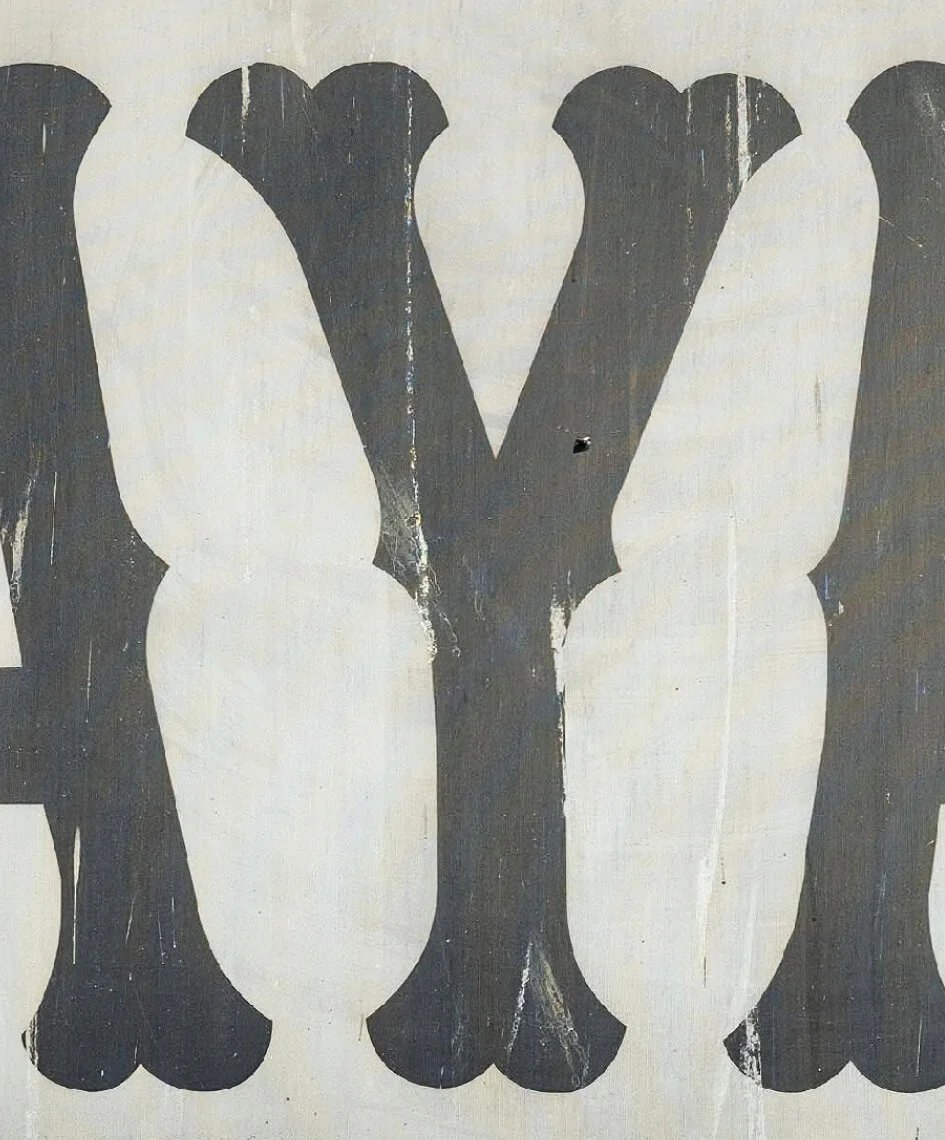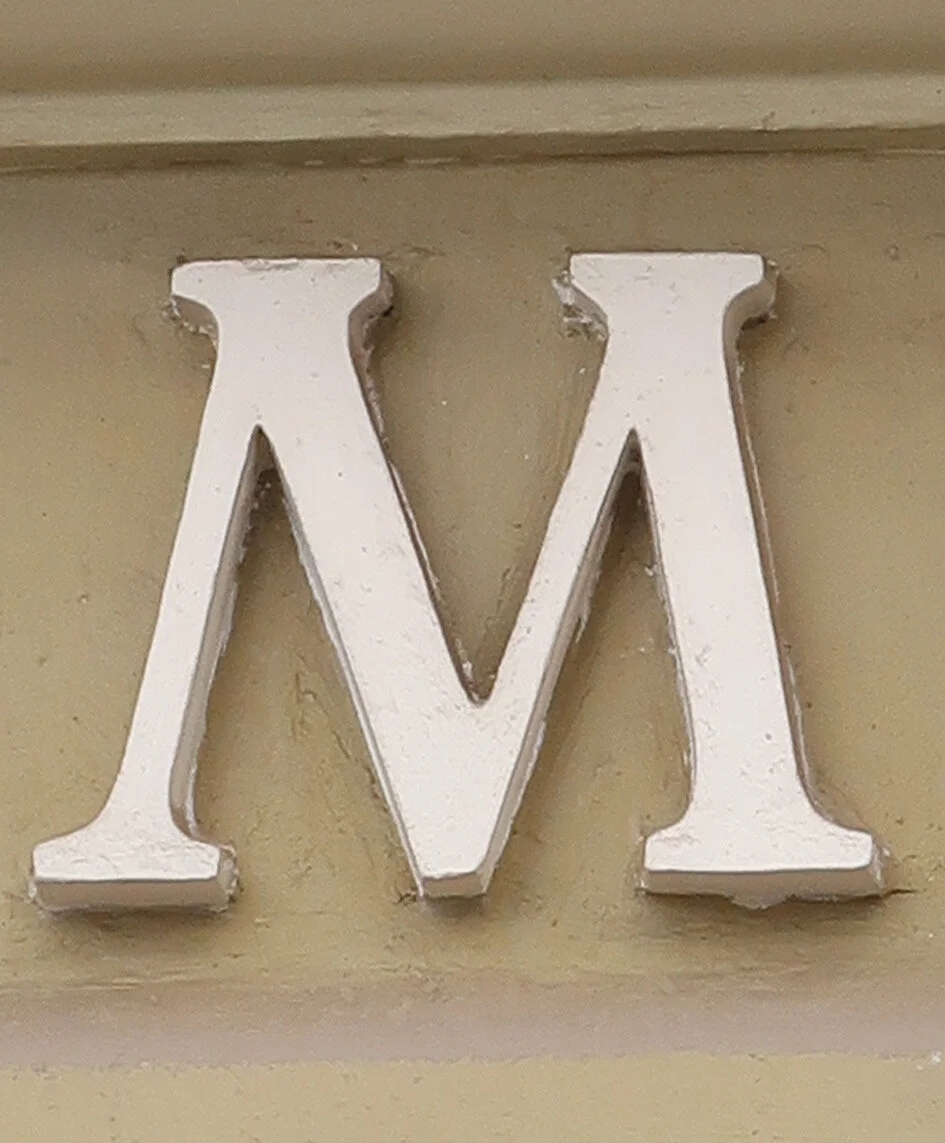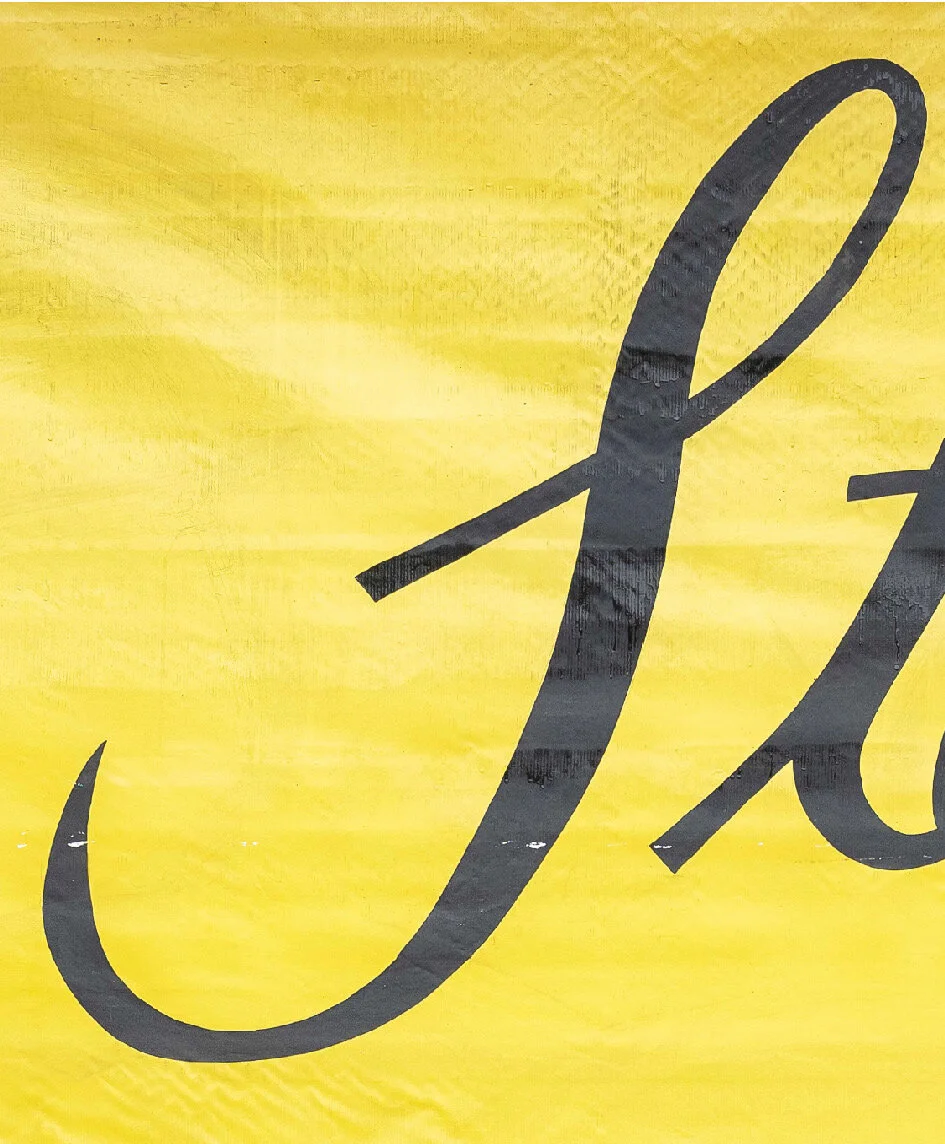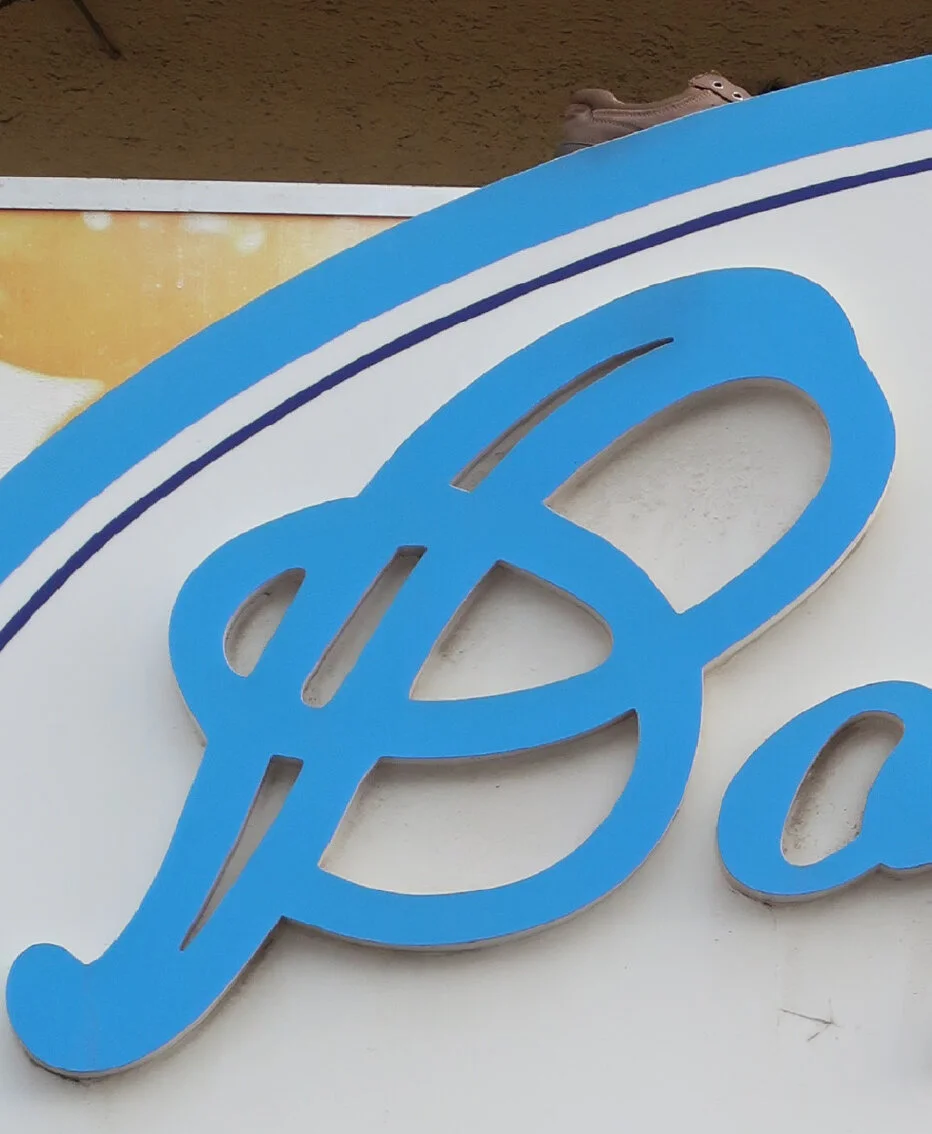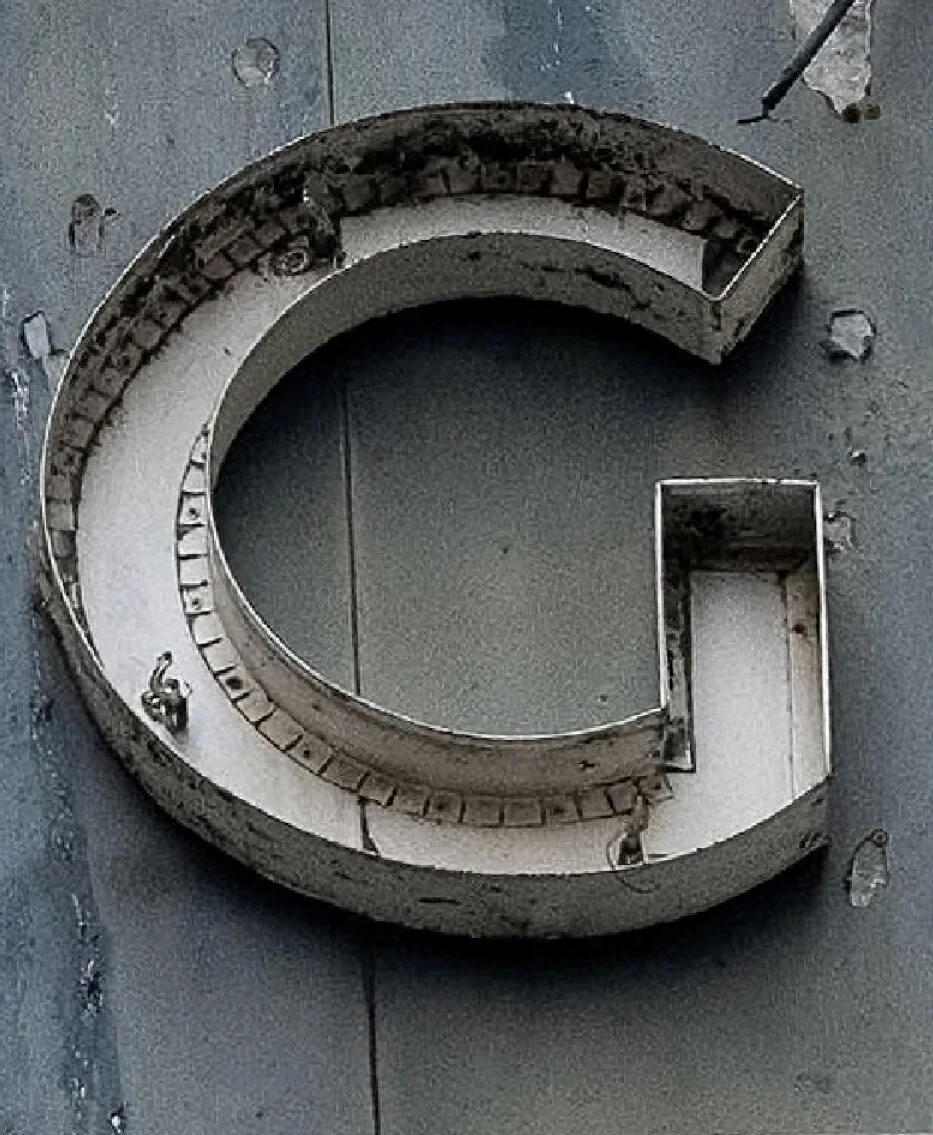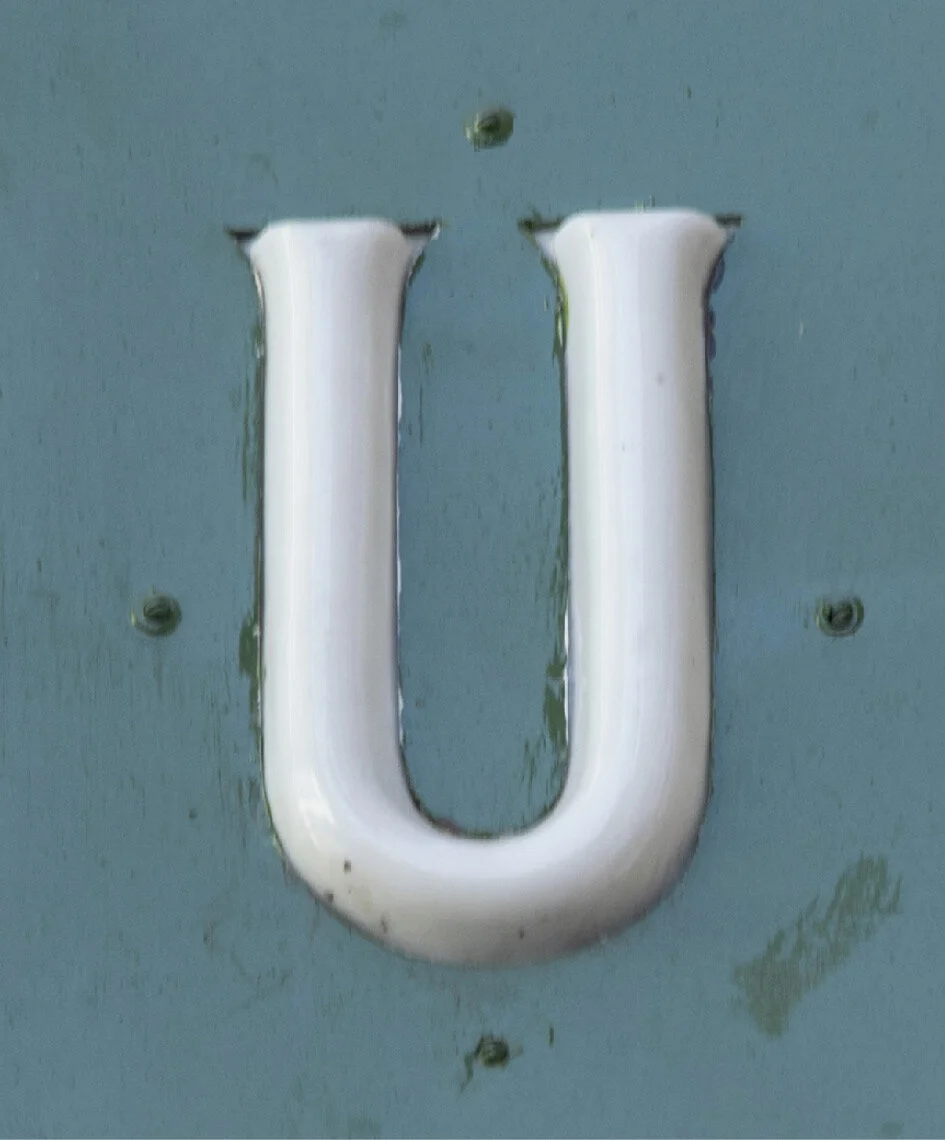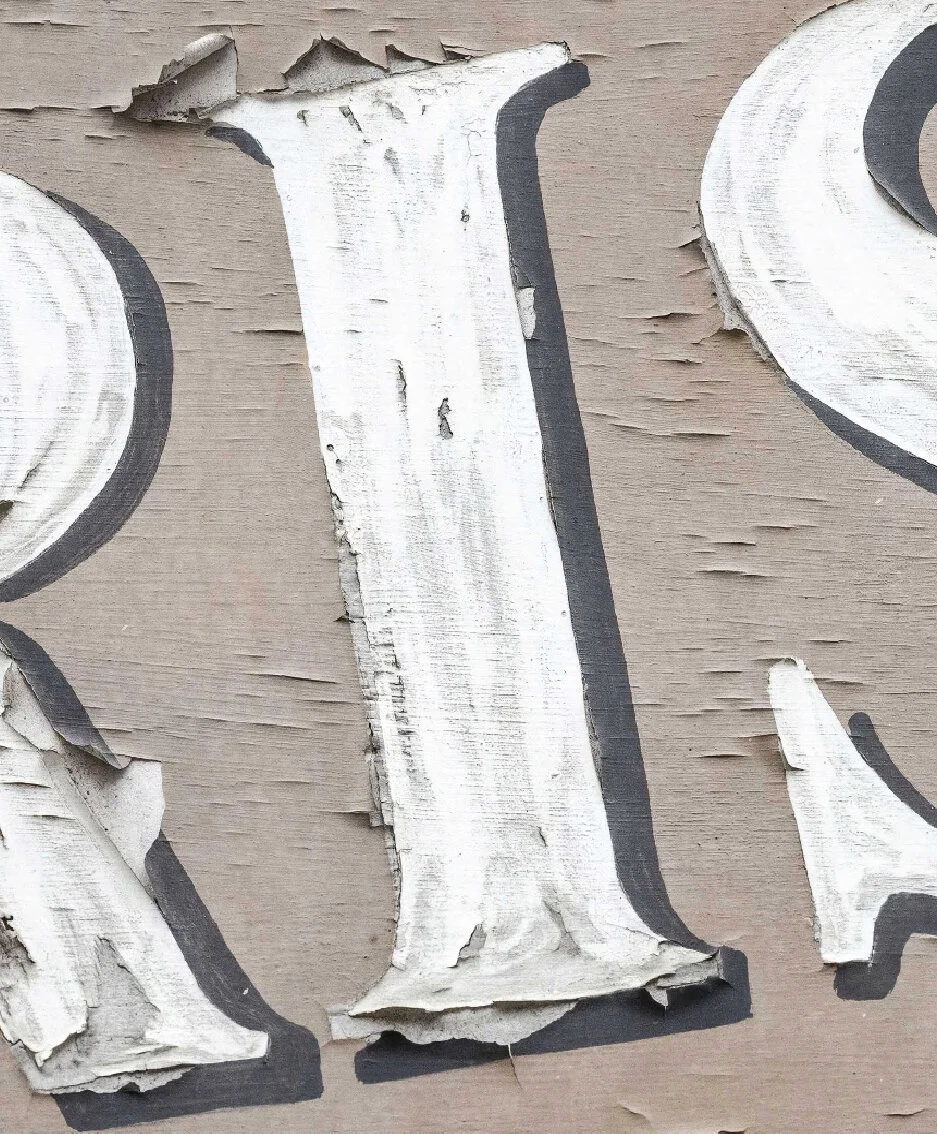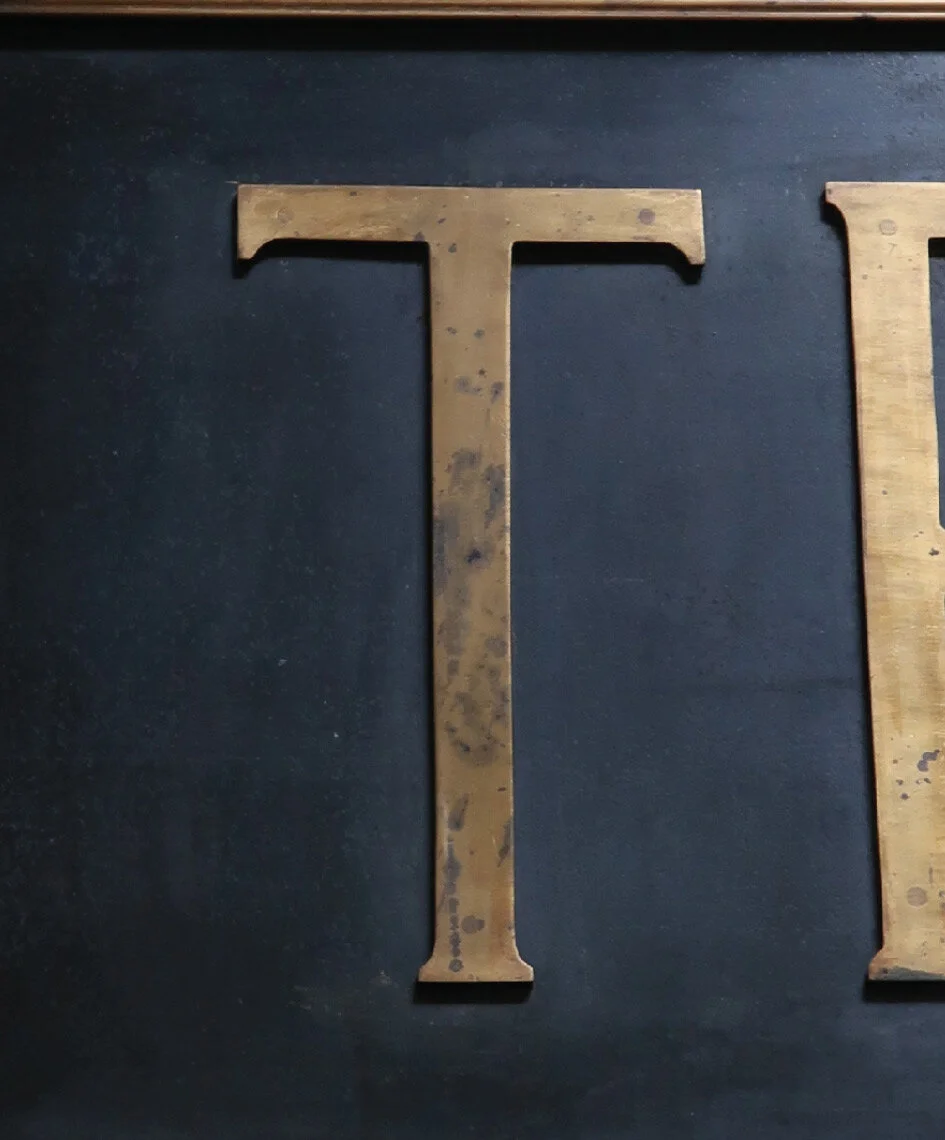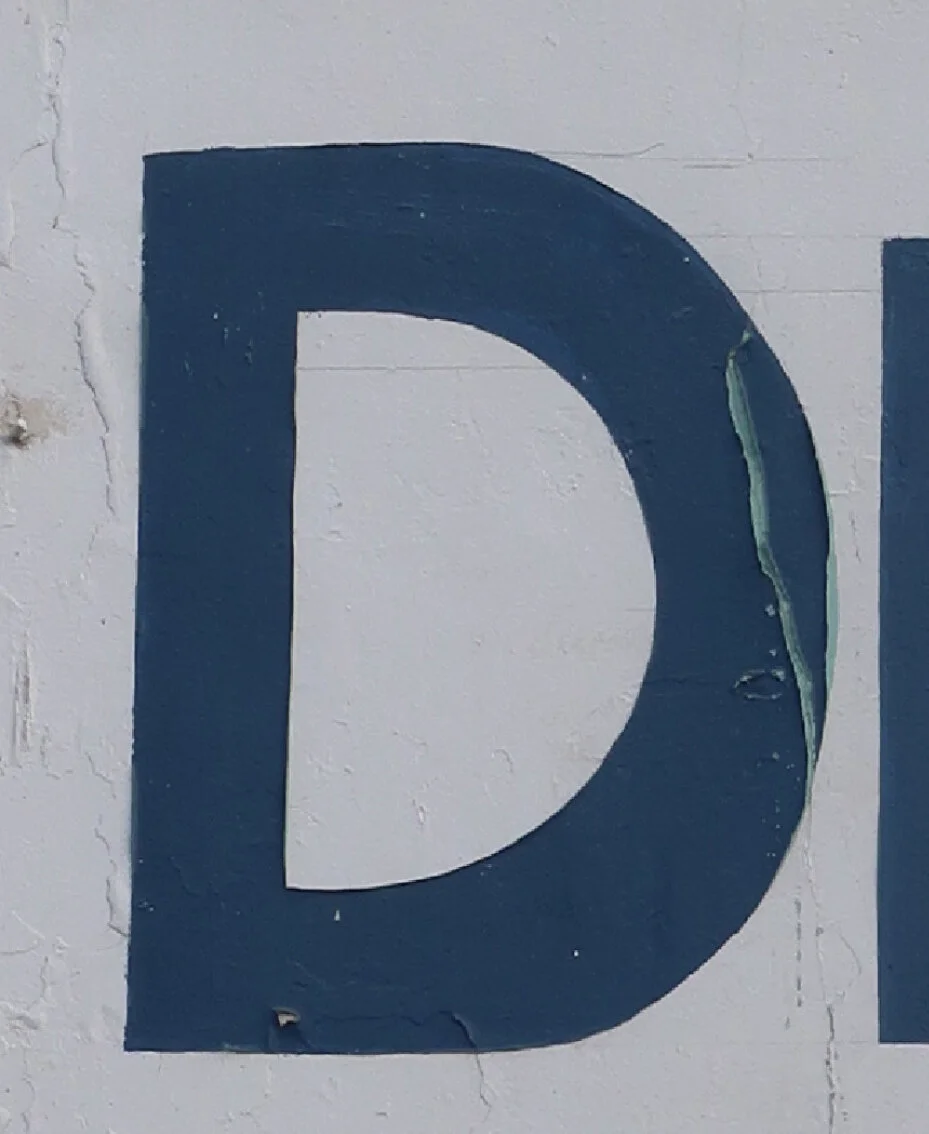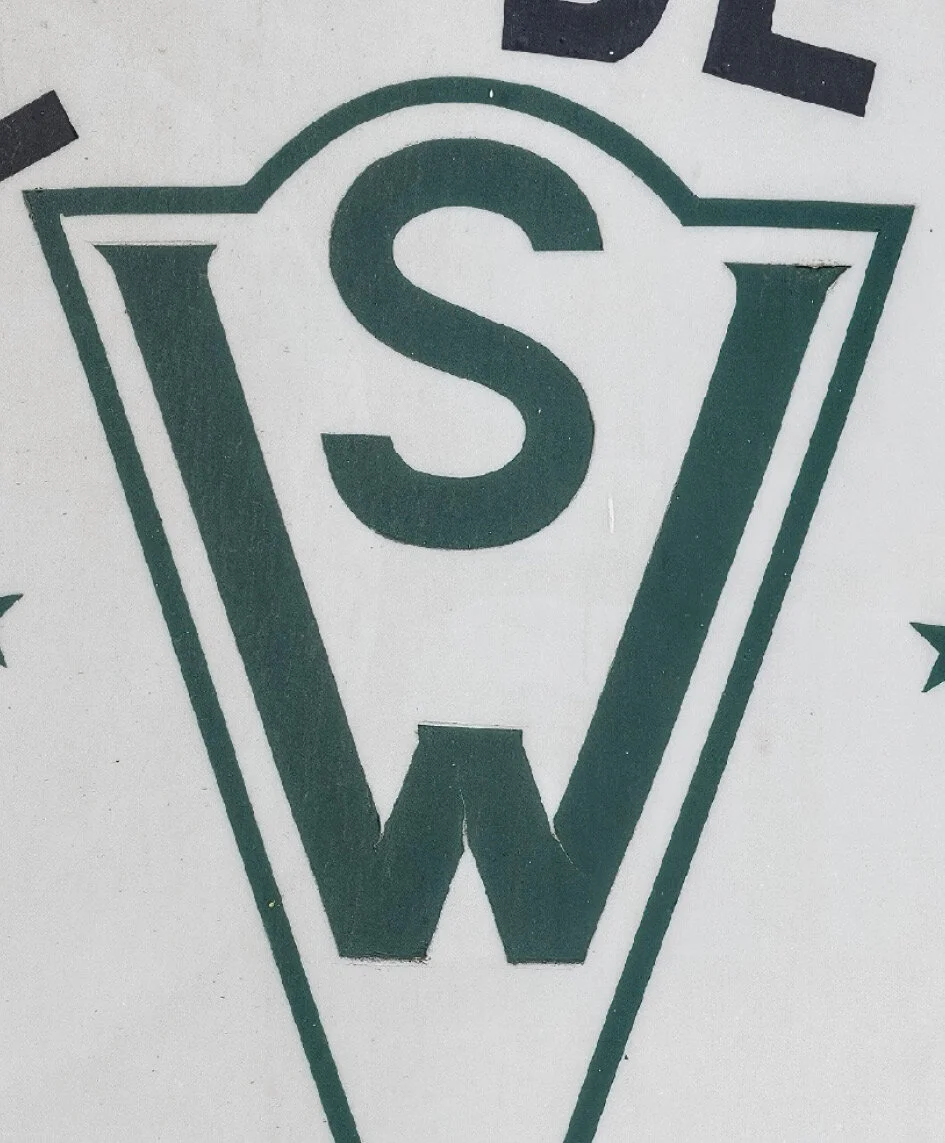
Porteño Alphabet
In every letter a port story
We invite you to get to know Valparaiso through its letters. Each one of them has a double meaning: it tells a story about the port, their businesses, galleries or markets, and also, it’s part of the visual culture of this original city.
You will discover from A to Z, the port’s complete alphabet, playfully created, with the signs of the places that every porteñ@ knows, such as the famous Roma bar, icon of university students hang outs, right in front of University of Playa Ancha, the eyewear shop Koch where you can find a 70s’ or 80’s treasure, or the beloved Guria, with Valpo’s best bread; the pan batido.
These signs also show Valparaiso’s inexhaustible typographic originality, which changes at every corner and it’s based on the vernacular, unlike modernized cities populated by chain businesses and strip centres. At the port each person makes their own sign and each sign is different from the other.
This record is born from TypoValpo’s Instagram account, created to collect the city's typographies and share them on Instagram. Shortly after its creation, the account became a digital space with a life of its own, showing the community's interest in the subject.
Followers rapidly became contributors, sharing to the account the typographies they spotted on their daily commutes. Besides, conversations began to take place in the comment section about certain places, businesses and the walls of the city.
This spontaneous participation of the digital community evidenced the living heritage that are the typographies of a city, evoking personal and collective stories and daily experiences of the inhabitants who interact with these signs from both the visual and literal meaning of the place they advertise.
Through this exhibition, we invite you to value these signs, local shops and its offers, thus recognizing their value and how extraordinary life is in Valparaiso. Start with any letter you prefer and explore this unique city.
Also, be part of the TypoValpo community by sharing your favourite urban typographies; by doing this we make everybody’s daily journey an extraordinary experience.